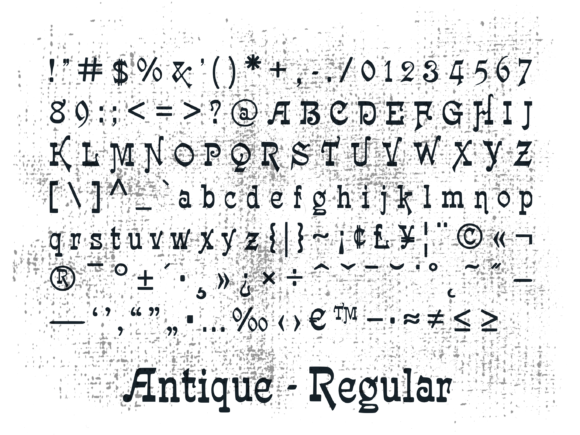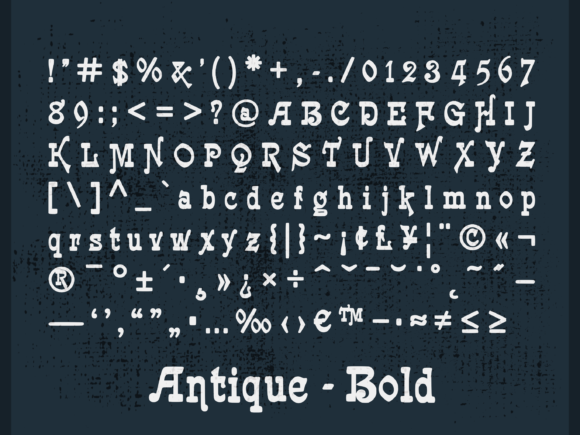
Timeless Elegance: The Allure of Antique Font
Have you ever been rummaging through an old trunk, uncovering forgotten photographs and yellowed letters, and felt a sudden rush of creative inspiration? For designers, that’s exactly what Antique Font is all about – capturing the essence of a bygone era and infusing it into modern designs.
Antique Font is a serif font that exudes a playful, nostalgic charm. Its intricate details and classic feel make it the perfect addition to any design project seeking a vintage touch. Whether you’re working on a retro-themed website, a vintage-inspired magazine, or a custom logo, Antique Font is sure to add a special je ne sais quoi to your work.
For designers, Antique Font is a valuable asset – a tool that can instantly transport audiences to a different time and place. By incorporating this font into your designs, you’ll not only pay homage to the past but also create a sense of timelessness that will captivate your viewers.
Key Features of Antique Font
- Unique Characteristics: Antique Font features a distressed, vintage aesthetic with subtle texture and imperfections, giving it a unique and eye-catching look.
Designer Review: Antique Font
Overall, I’d say Antique Font is a solid choice for projects that require a vintage or classic feel. It’s got a certain charm to it that can really add character to your designs. ✨
- Legibility: Despite its ornate appearance, Antique Font is surprisingly easy to read, even at smaller font sizes.
- Variety: The font family includes several weights and styles, giving you plenty of options to choose from.
- Emotional Connection: The font’s distressed, vintage aesthetic can evoke a strong emotional response from your audience.
However, there are some limitations to keep in mind:
- Flexibility: Antique Font isn’t the most versatile font out there. It’s best suited for projects with a specific vintage or classic theme.
- Readability at Small Sizes: While the font is legible at most sizes, it can become a bit fuzzy when reduced to extremely small sizes.
- Overuse: With its distinctive look, it’s easy to overuse Antique Font. Be sure to balance it with other fonts to avoid visual fatigue.
Overall, I’d give Antique Font 3.5 out of 5 stars. It’s a great choice for projects that require a vintage feel, but it may not be the best fit for every design scenario.
The Antique font is ideal for creating a vintage or classic look in your designs. Use it for:
Historical or vintage-themed designs
Book covers and titles
Adding a touch of elegance to your typography